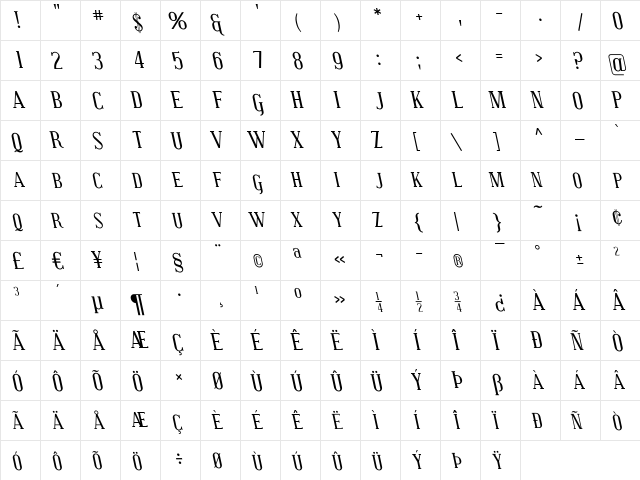
Covington SC Rev Italic
Design Context for Covington SC Rev Typeface
Covington SC Rev is a composed and adaptable typeface that performs quietly and consistently across a wide range of design contexts. Its italic angle brings a sense of urgency and motion to the letterforms.
Pro Tip: Try Covington SC Rev for annotation and caption copy alongside an upright companion — the contrast in angle creates a dynamic but ordered typographic system.